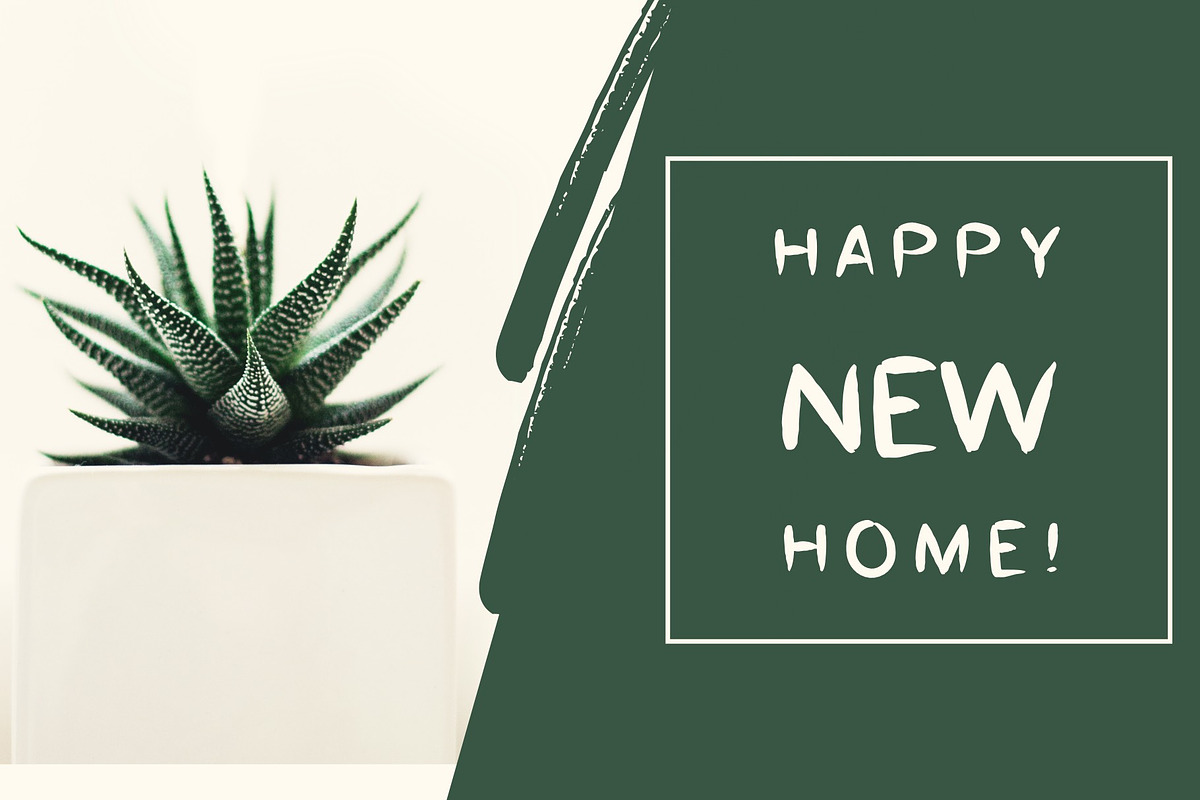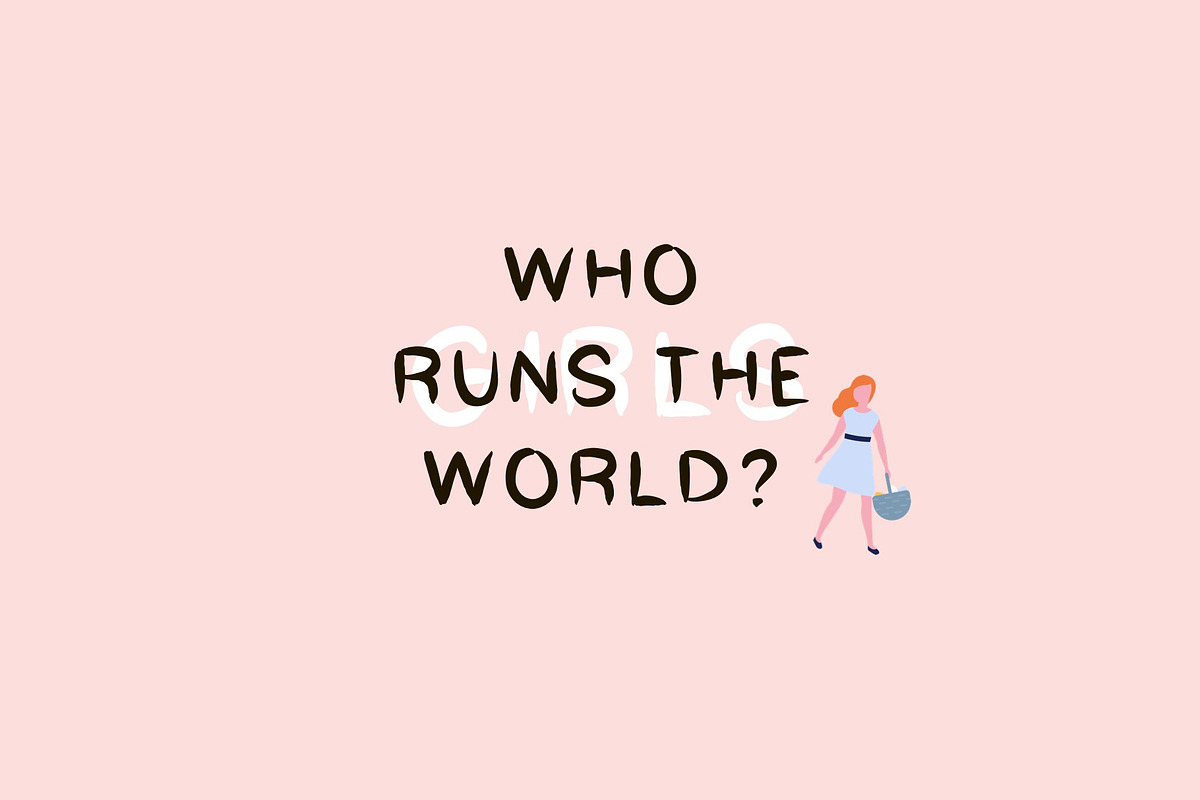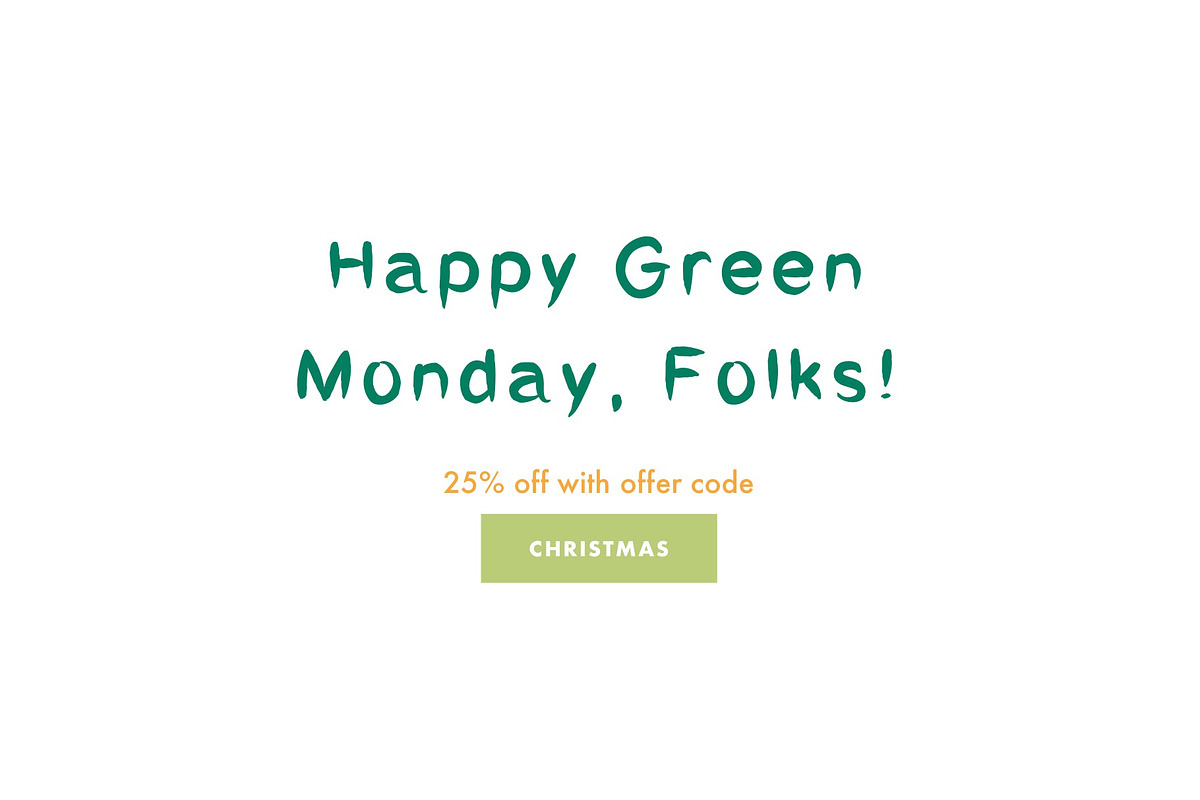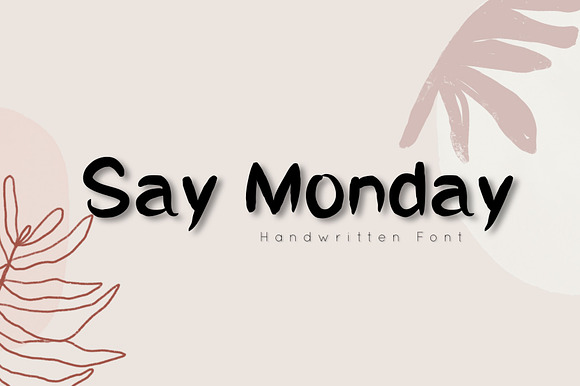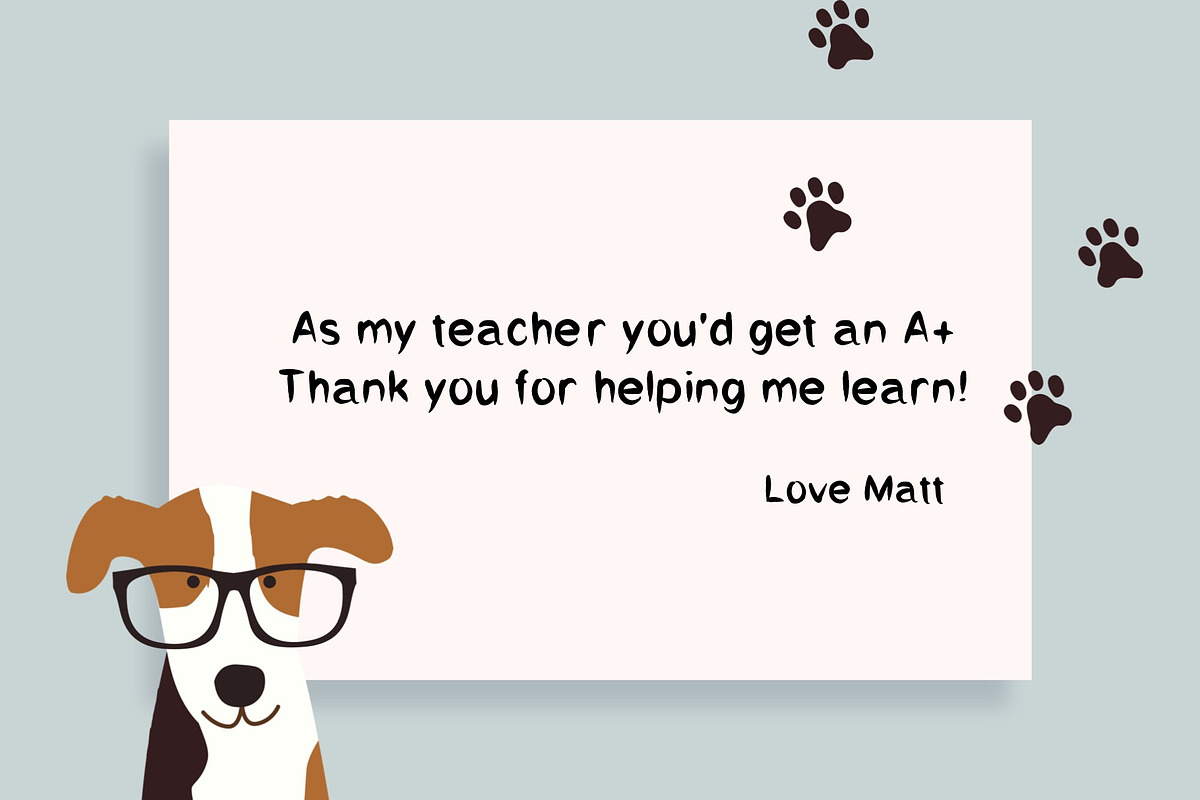
Say Monday | Handwritten Font
Say Monday It's perfect for your project.
This handwritten font is ideal for branding and decorates any project.
Every single letter has been creative carefully. This font is perfect for making your set Of Brand, blog posts, DIY projects, greeting cards, labels, quotes, posters, wall art, branding, packaging, websites, photo & photography overlays, signs, window art, scrapbooking, tags and so much more!
Say Monday | Handwritten Font by Artstudio fits naturally into Branding, posters, packaging, typography.